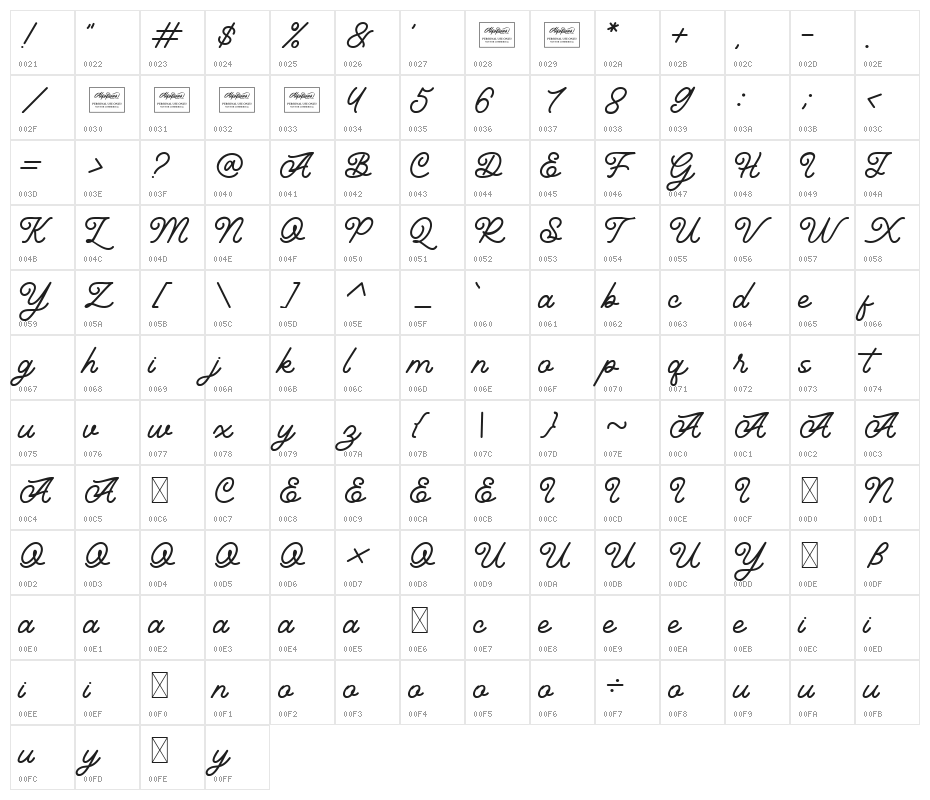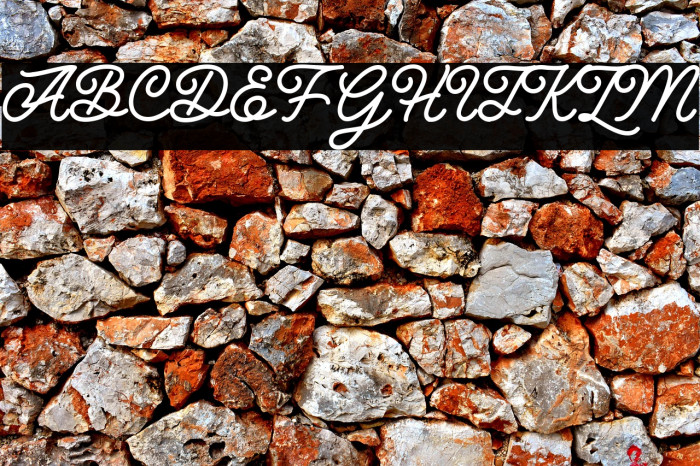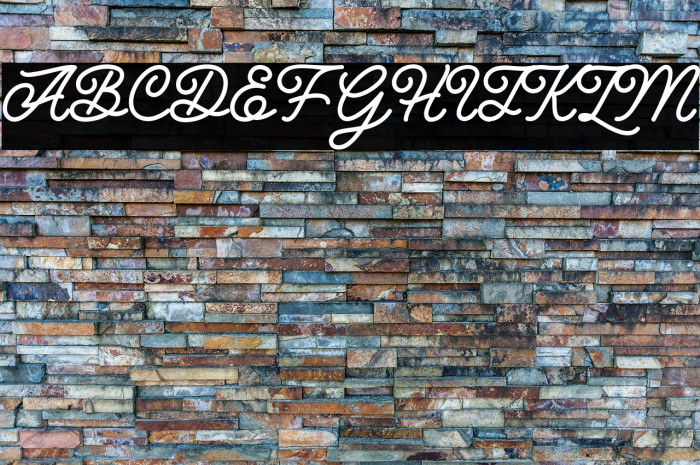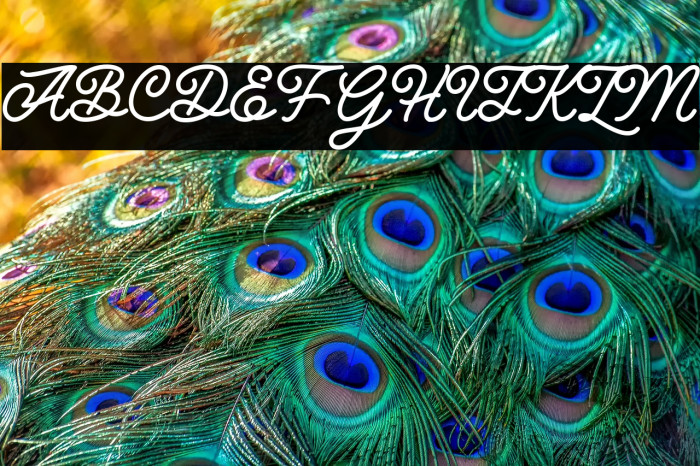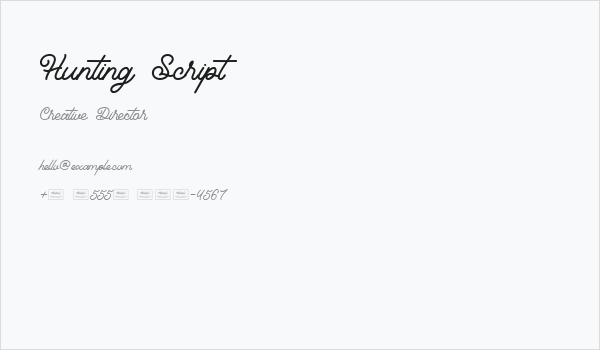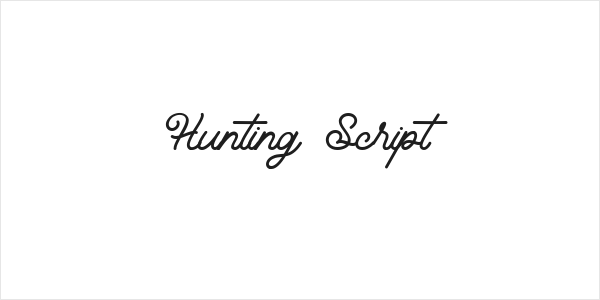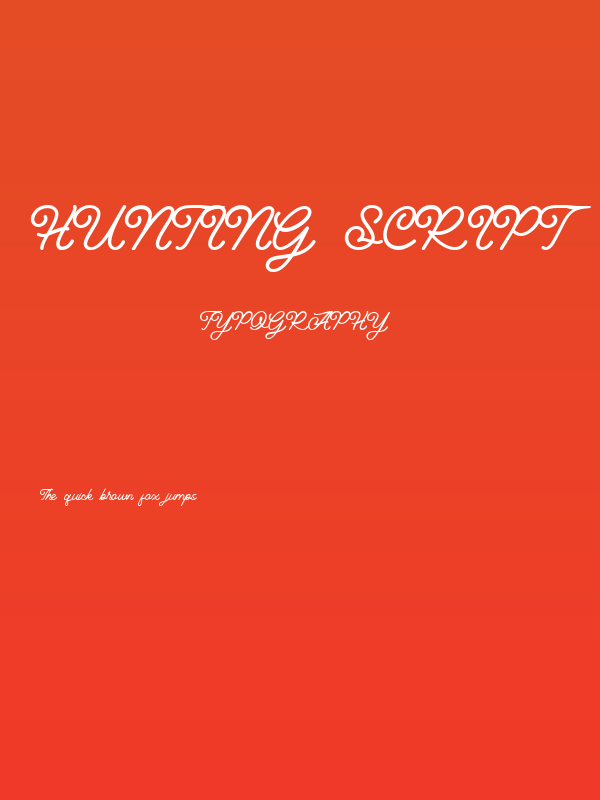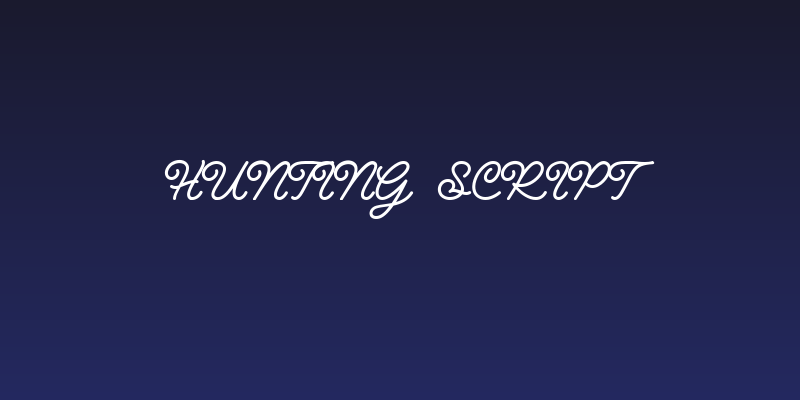
Hunting Script Font
Hunting Script Description
This font features a flowing, cursive style that emulates elegant handwriting. The letters are interconnected, creating a seamless and fluid appearance. The uppercase characters are bold and slightly larger, adding a touch of sophistication, while the lowercase letters maintain a consistent flow. The numbers and special characters are designed to match the script style, ensuring uniformity across all text. The overall look is both classic and stylish, making it suitable for a variety of creative projects.
| Overall Style | Classic |
| Use Case | Logos, Invitations, Decorative text |
| Proposed Projects | Ideal for wedding invitations, greeting cards, branding, and logo design. |